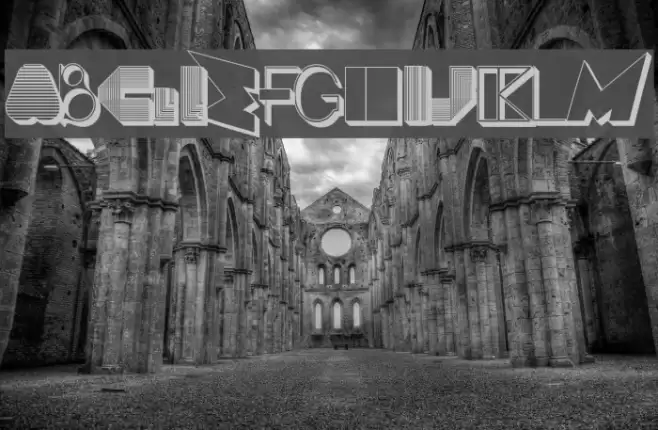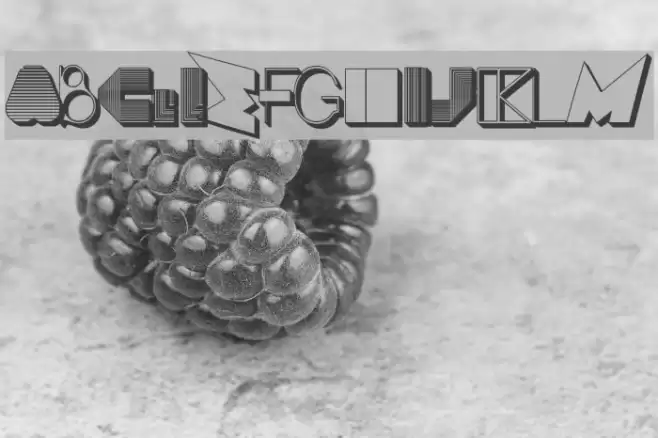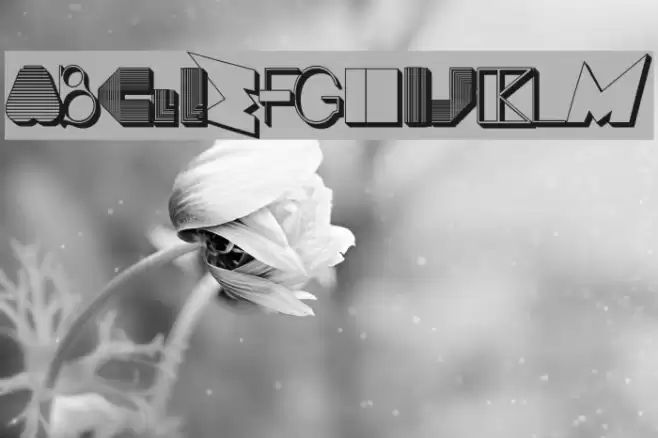
BOSSM-B Font
BOSSM-B Description
This font features a highly decorative and geometric style, characterized by intricate patterns and bold outlines. Each letter is uniquely designed with a combination of lines, angles, and shapes that create a dynamic and visually striking appearance. The font's design incorporates elements of modern art and architecture, making it stand out with its complex and layered structure. The use of negative space and varying line thicknesses adds depth and dimension, giving each character a three-dimensional effect. This font is ideal for projects that require a bold and artistic touch, capturing attention with its unconventional and creative design.
A decorative, geometric font with intricate patterns and bold outlines from Uncategorized fonts.
- Proposed Projects: Ideal for artistic posters, album covers, modern art exhibitions, and creative branding.